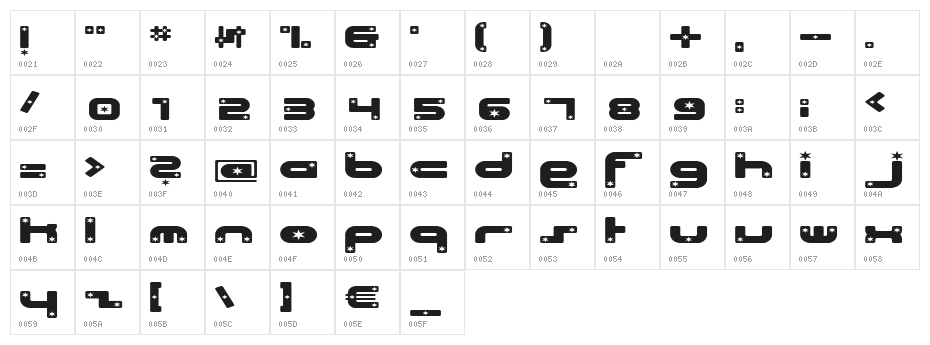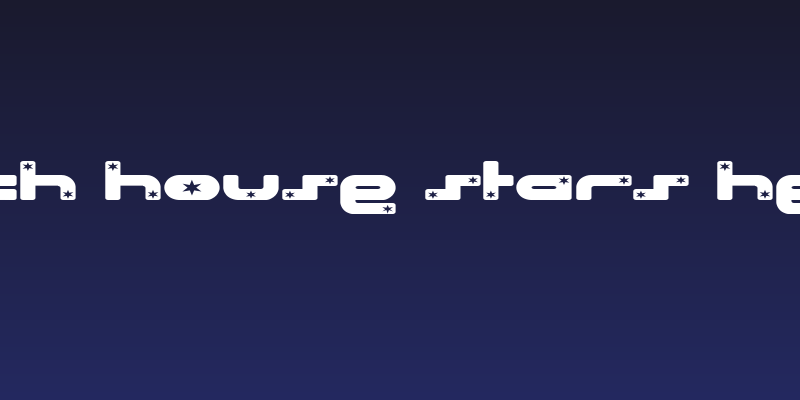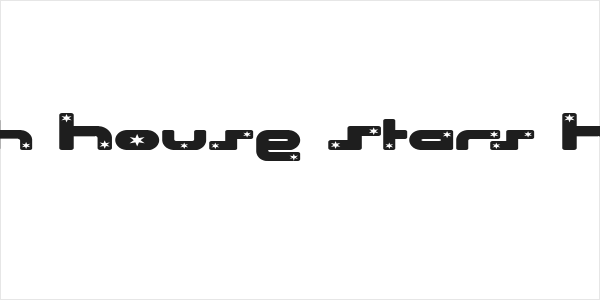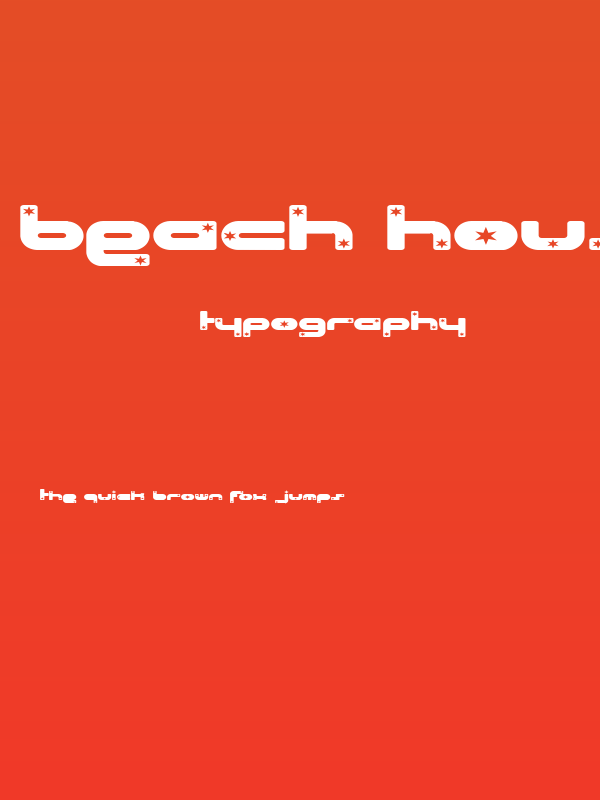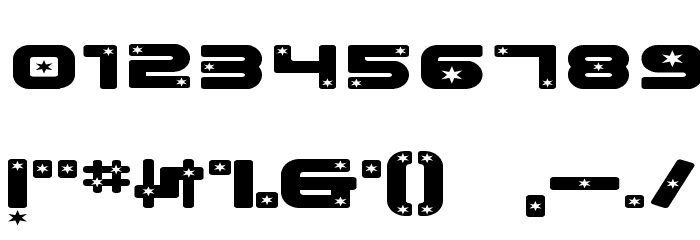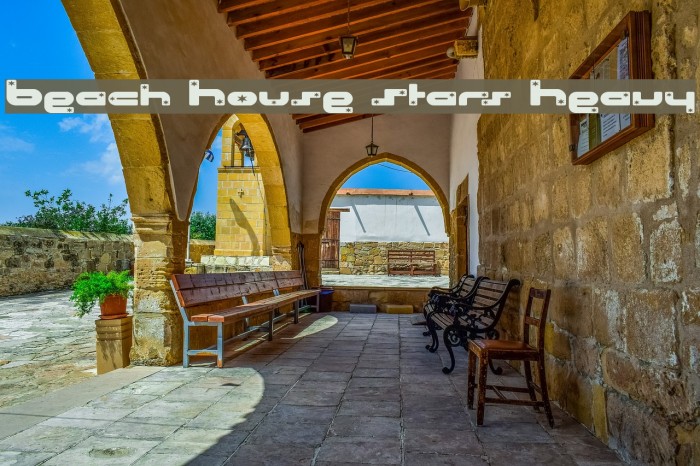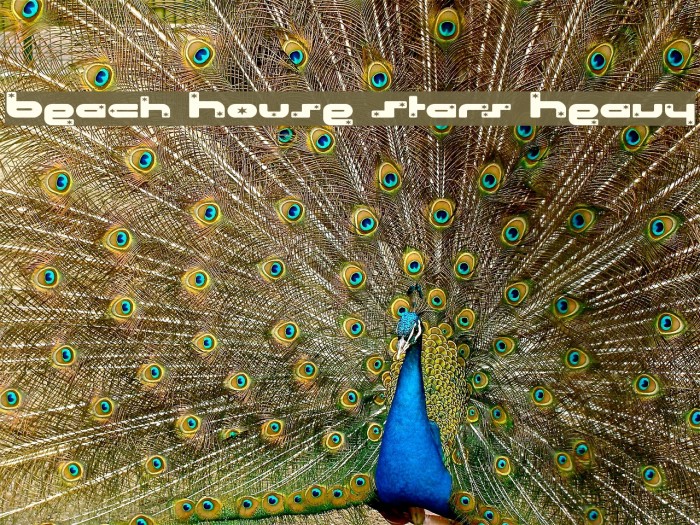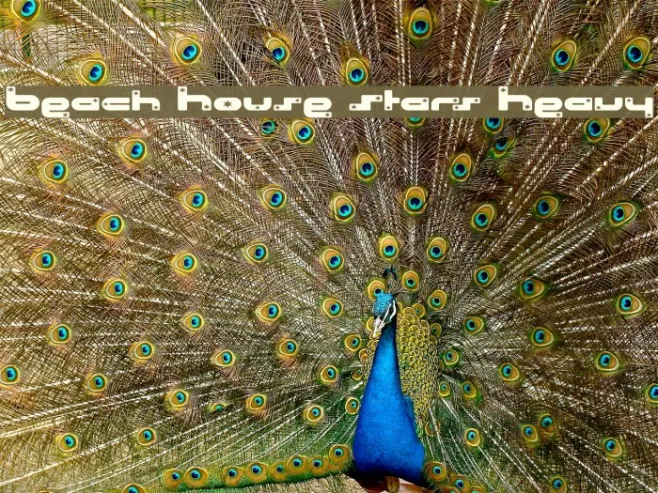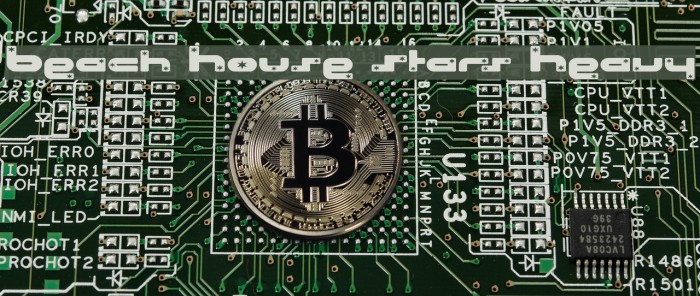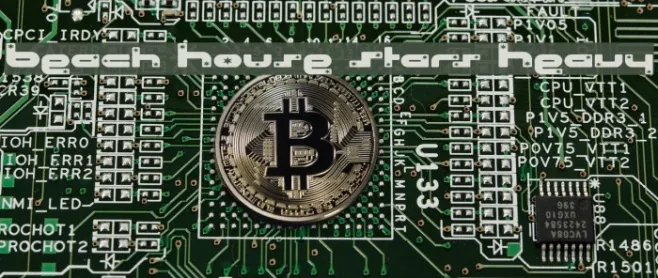
Beach House Stars Heavy Font
Beach House Stars Heavy Description
This playful and decorative font features bold, rounded characters adorned with star motifs. Each letter and number is designed with a solid, heavy weight, giving it a substantial presence. The stars are integrated into the strokes, adding a whimsical and fun element to the overall design. The font maintains a consistent thickness throughout, with minimal contrast in stroke width. Its unique style makes it stand out, perfect for projects that require a touch of creativity and flair. The characters are evenly spaced, ensuring readability while maintaining its decorative appeal.